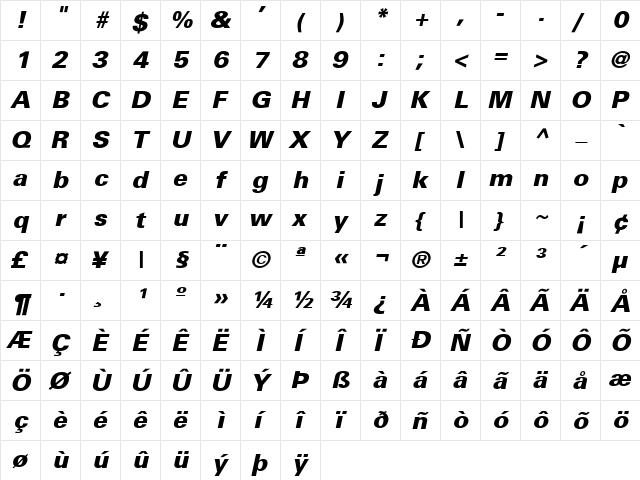
USABlack Italic
Design Context for USABlack Typeface
USABlack takes a measured approach to typography — its balanced proportions and neutral character make it a reliable workhorse for both digital and print work. Its italic angle brings a sense of urgency and motion to the letterforms.
Pro Tip: Try USABlack for annotation and caption copy alongside an upright companion — the contrast in angle creates a dynamic but ordered typographic system.